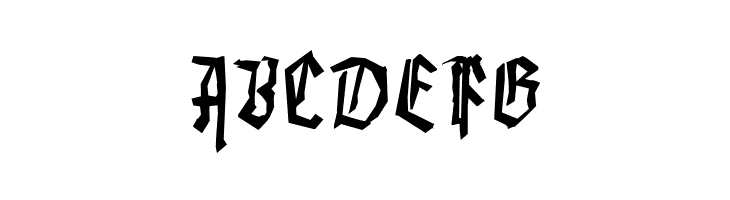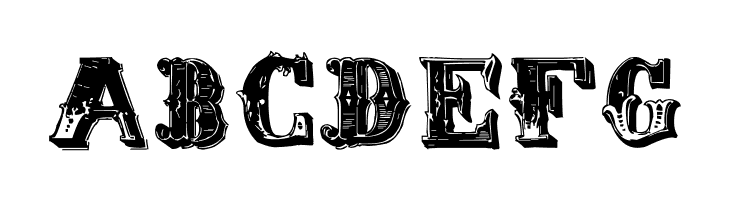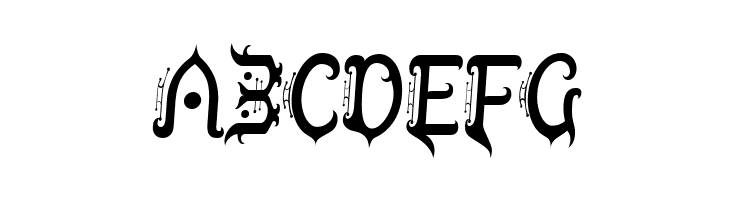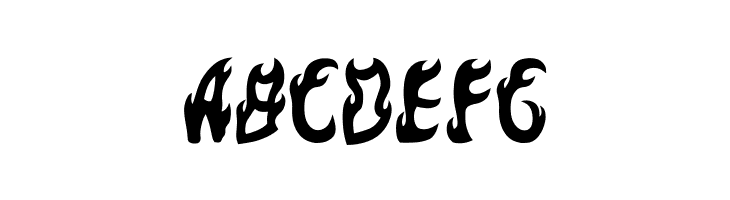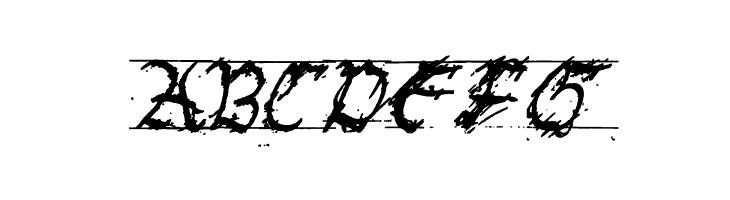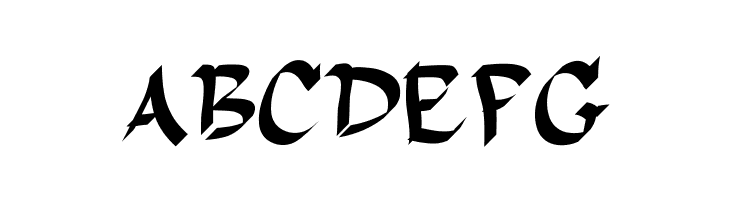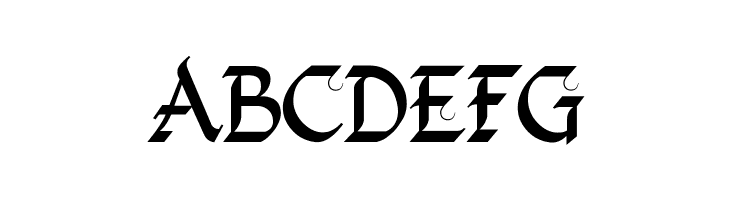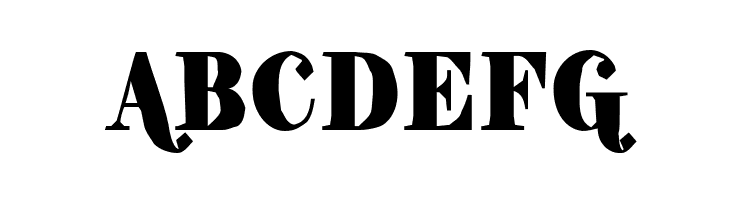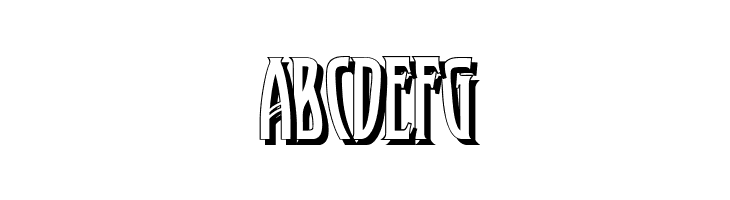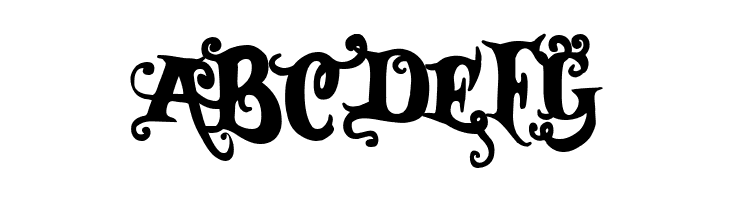
A bold, angular blackletter font with a modern twist.
A bold, dramatic Blackletter-style font with thick, angular strokes.
A bold, intricate blackletter style with dramatic, ornate characters.
A bold, blackletter-style font with sharp, angular lines and a medieval aesthetic.
A bold, blackletter-style font with sharp angles and dramatic strokes.
A decorative and intricate font with Gothic-inspired embellishments.
A bold, angular blackletter style font with dramatic strokes.
A bold, decorative blackletter font with ornate detailing and enclosed characters.
A bold and intricate Blackletter font with dramatic, ornate letterforms.
A bold, gothic-inspired decorative font with intricate details and a medieval flair.
A bold, Gothic-style font with sharp, angular characters and high contrast.
A bold, decorative font with gothic and medieval influences, featuring intricate and ornate designs.
A bold, flame-inspired font with dramatic, dynamic characters.
A bold, distressed Gothic font with a hand-drawn, medieval appearance.
A bold, medieval-inspired font with sharp serifs and dramatic angles.
A bold, blackletter-inspired font with dramatic, angular characters.
A bold, decorative font with a shadow effect and angular serifs.
A decorative and ornate font with gothic influences and intricate flourishes.
A bold, edgy font with sharp, jagged edges and a distressed, rebellious style.
A bold, jagged font with a spooky, horror-themed design.
A bold, decorative font with sharp angles and thick strokes.
A bold, Gothic-inspired font with sharp, angular edges and exaggerated serifs.
A bold, decorative font with gothic, thorn-like embellishments.
A bold, decorative font with intricate details and a vintage flair.
A bold, angular font with a gothic-inspired design, perfect for dramatic visual impact.